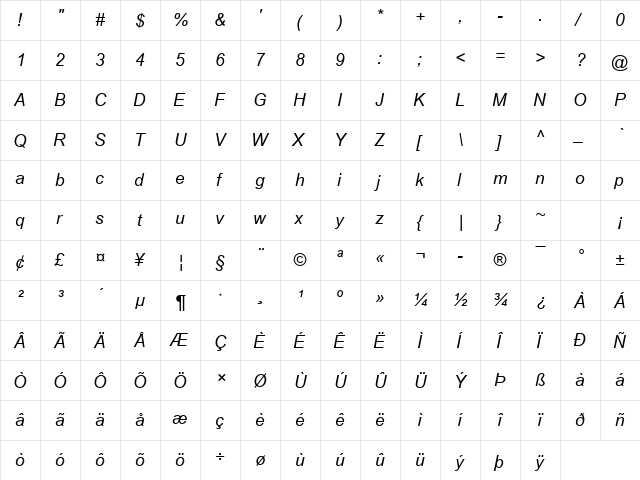
Utsaah Italic
Design Context for Utsaah Typeface
Utsaah is a composed and adaptable typeface that performs quietly and consistently across a wide range of design contexts. The dynamic lean of this cut emphasises speed and emphasis in any layout.
Pro Tip: Use Utsaah for emphasis, pull quotes, and subheadings where its slanted energy can add rhythm to the layout.